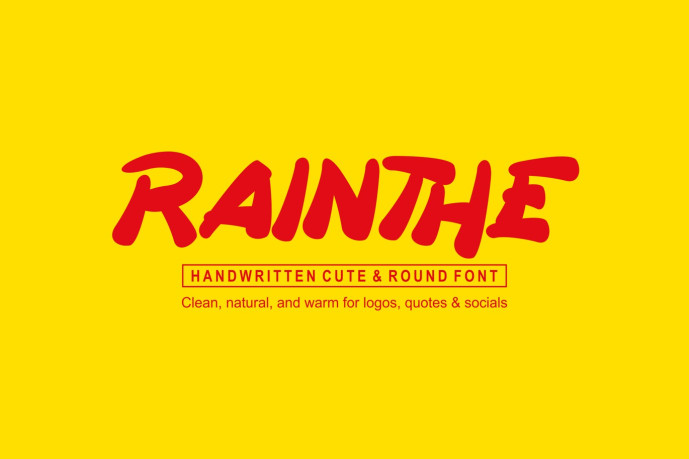
Rainthe – Handwritten Cute And Round Font
Introducing our new product Rainthe – Handwritten Cute And Round Font
Rainthe – Handwritten Cute And Round Font is a bold and authentic display font. The font is suitable for any branding project like logo, esport, and many more. outstanding in a wide range of contexts.